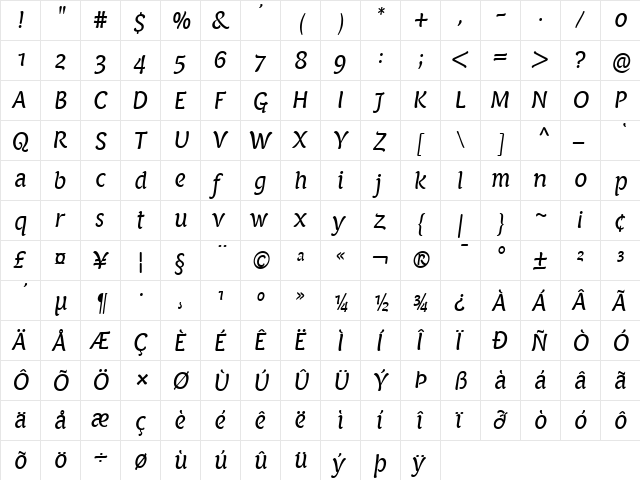
PF Armonia Italic
| Foundry | Vangelis Karageorgos |
| Designer | Vangelis Karageorgos |
Design Context for PF Armonia Typeface
PF Armonia offers clean, dependable letterforms without strong stylistic allegiance, making it a practical choice for designers who need flexibility. The dynamic lean of this cut emphasises speed and emphasis in any layout.
Pro Tip: Try PF Armonia for annotation and caption copy alongside an upright companion — the contrast in angle creates a dynamic but ordered typographic system.